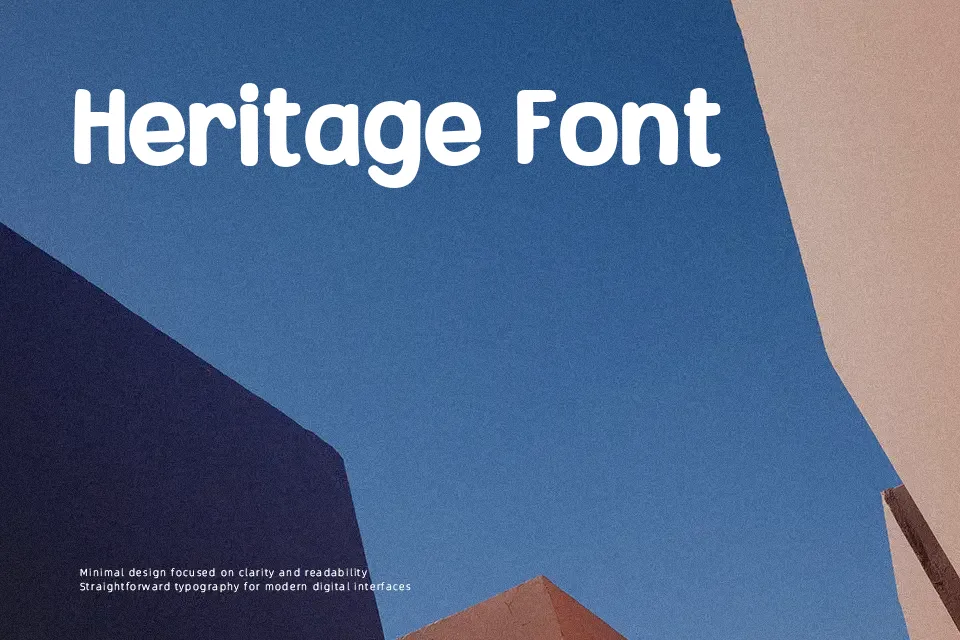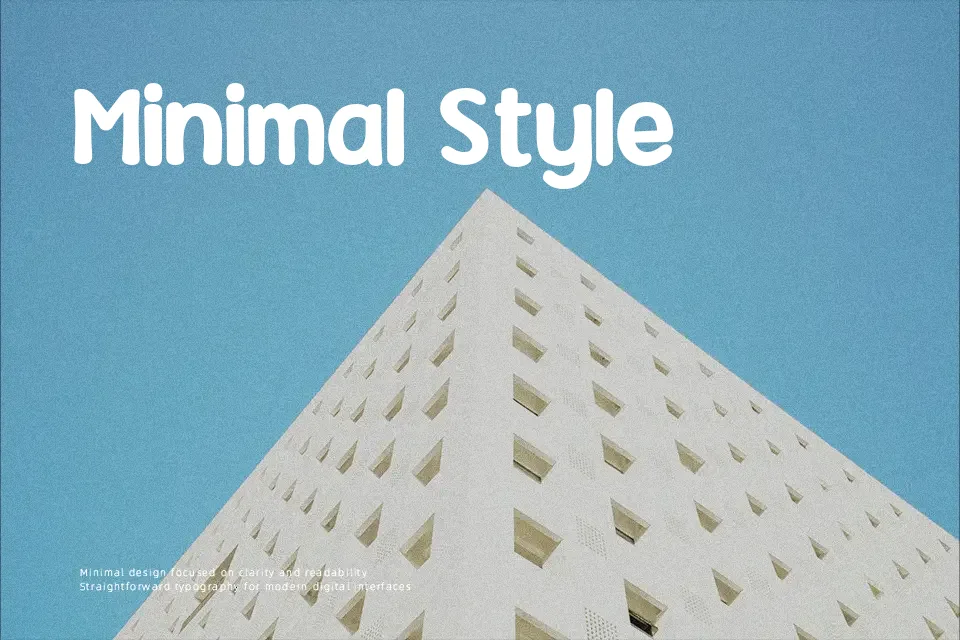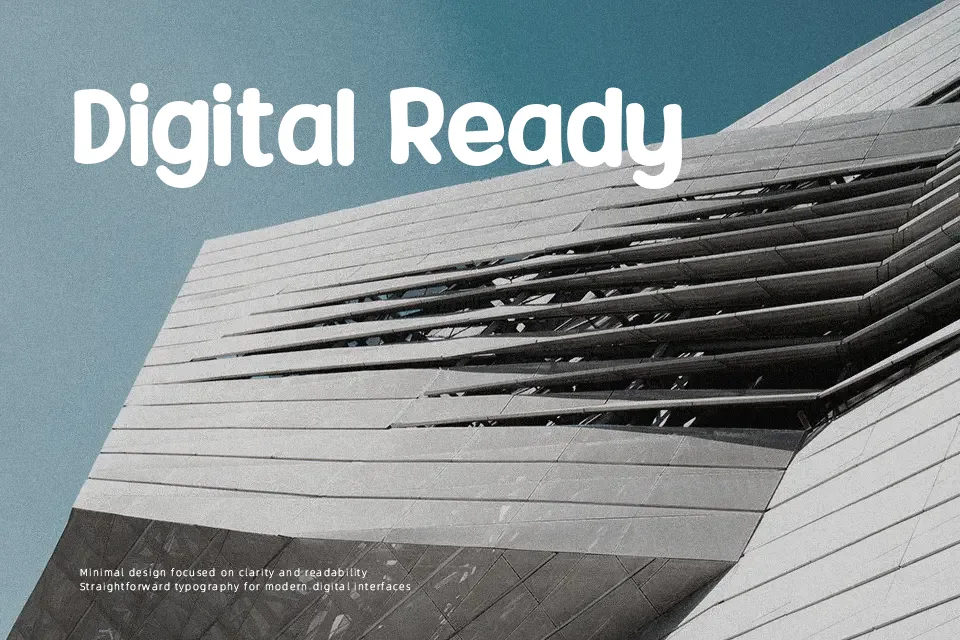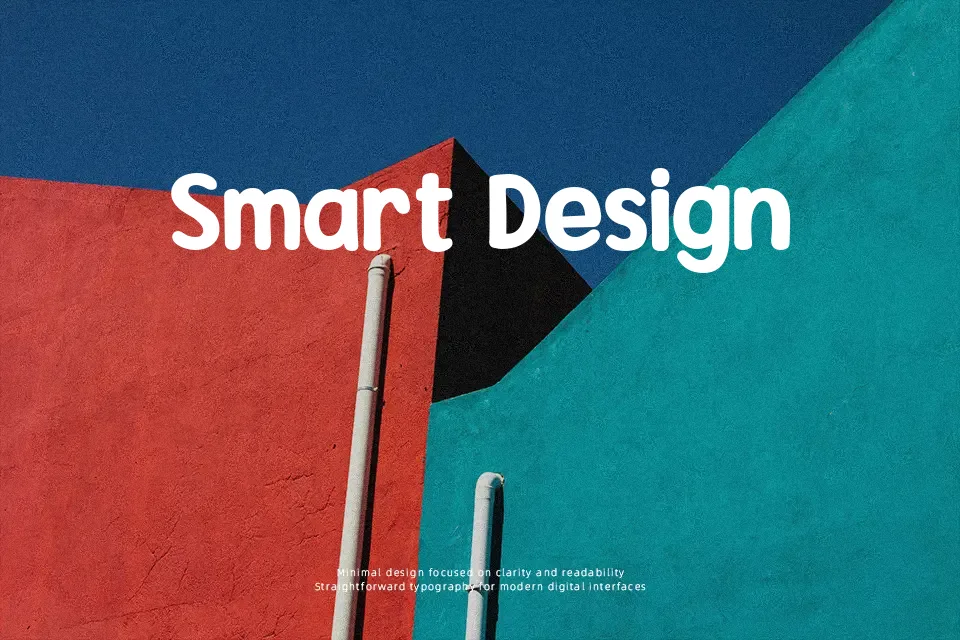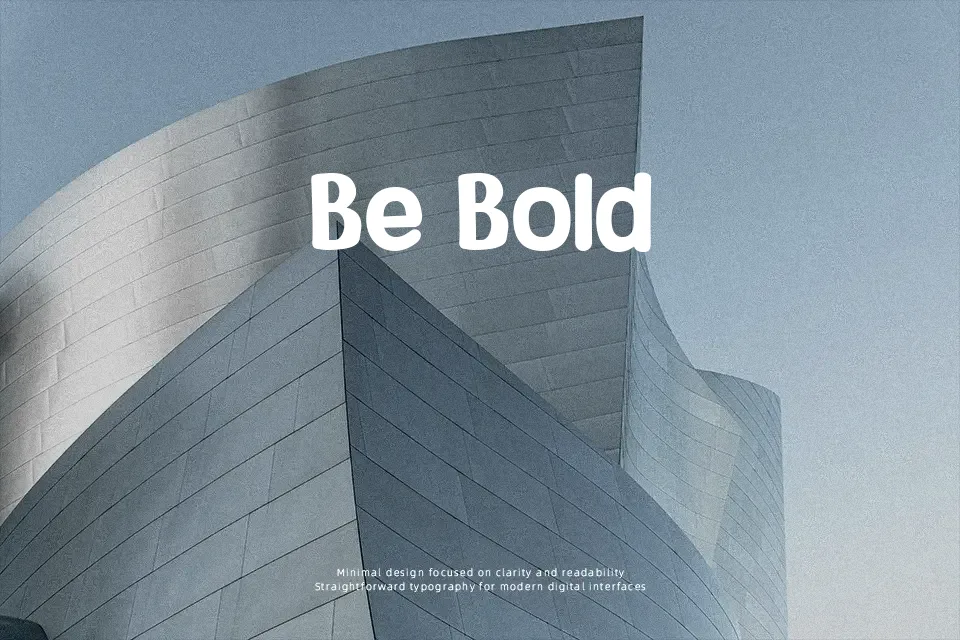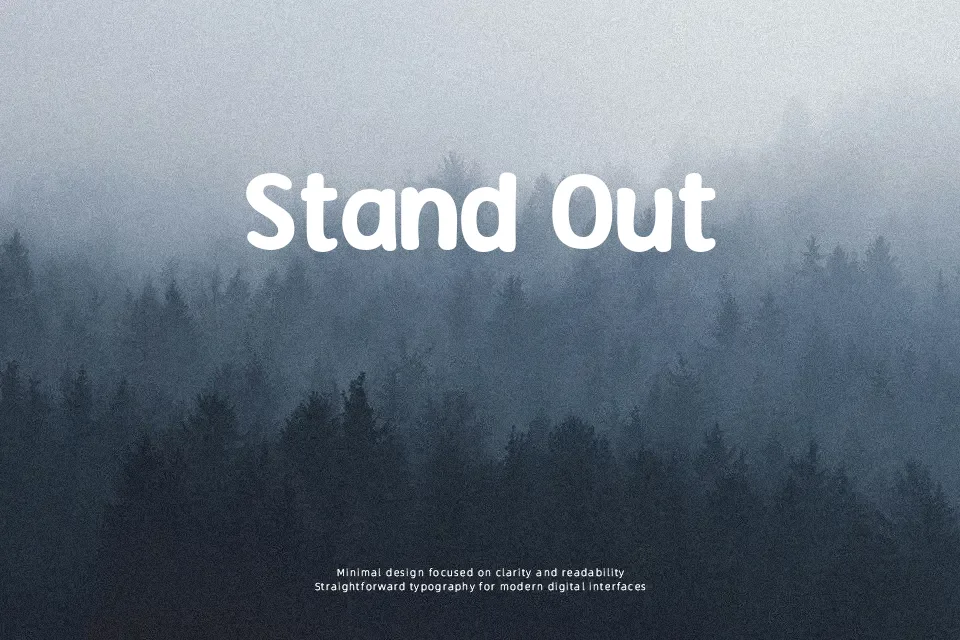
Alvina Font
Alvina is a display font with strong, semi‑bold strokes, clear geometric curves, and tight, confident spacing that gives every word a solid, contemporary presence. It borrows some looseness from handwritten styles while keeping letterforms structured enough to remain readable at headline sizes. This makes it work well for logos, banner headlines, landing page headers, and promotional layouts where a modern, assertive voice is needed. However, its limited glyph set and bold personality make it a weak choice for long paragraphs, small captions, or highly conservative corporate materials. When used sparingly as a main display element alongside a simpler text face, it can add a clear visual hook without overwhelming the design.